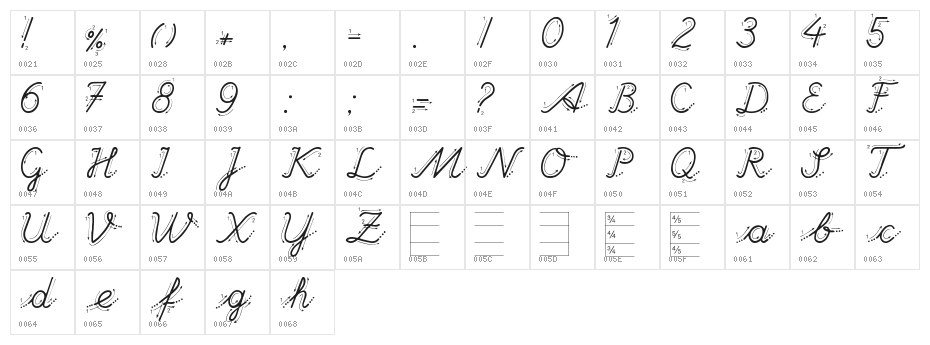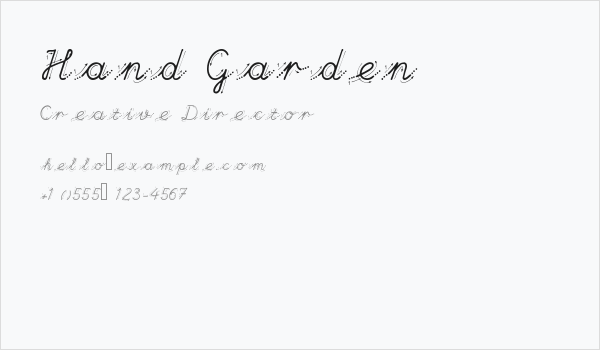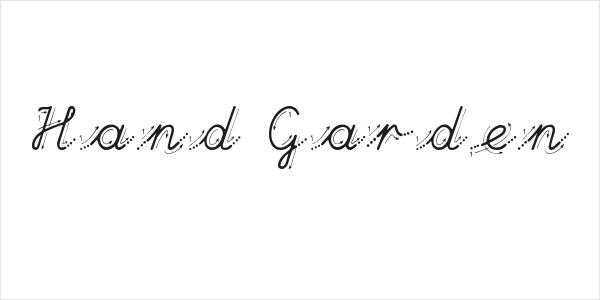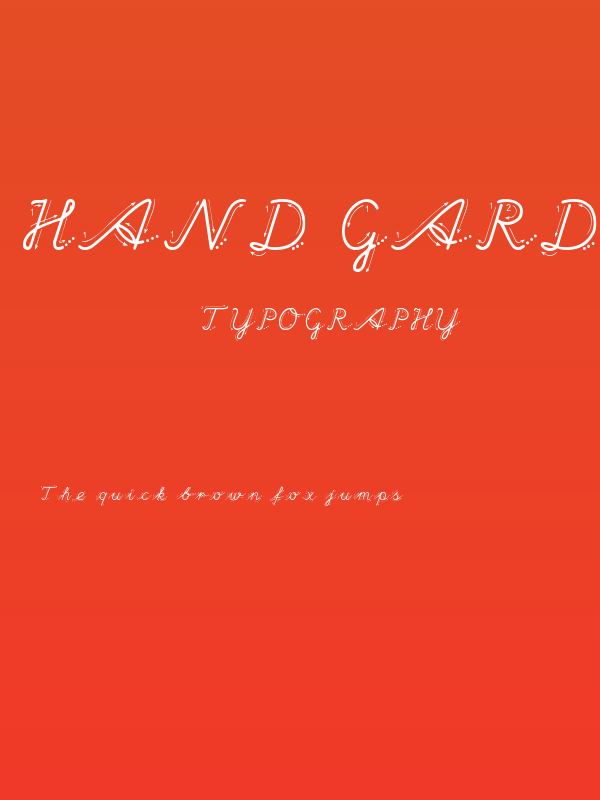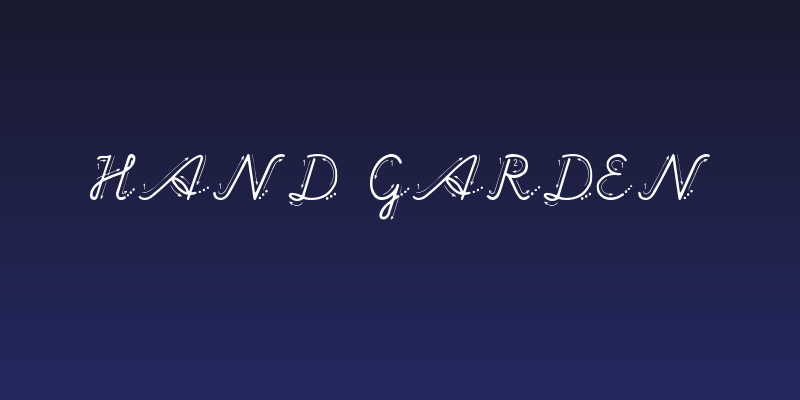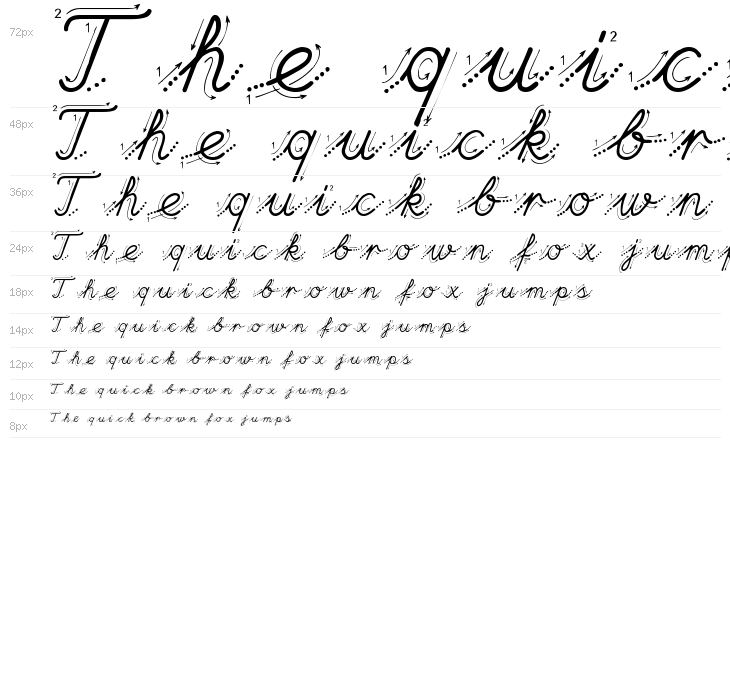
Hand Garden Font
Hand Garden Description
This font exhibits a charming and whimsical handwritten style, characterized by its flowing, cursive script. Each letter is adorned with delicate flourishes and a playful dotted pattern that adds a unique texture and visual interest. The uppercase letters maintain a consistent height, while the lowercase letters feature elegant loops and curves, enhancing the font's organic feel. The numerals are equally stylized, with a slight slant and decorative elements that mirror the letters' playful nature. Special characters are thoughtfully integrated, maintaining the overall aesthetic. This font's distinctive style makes it ideal for creative projects that require a personal touch.